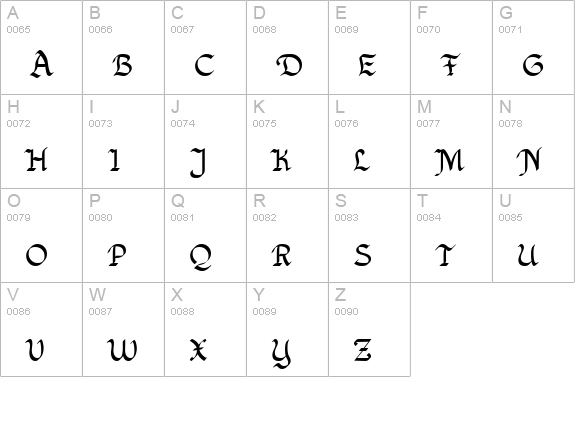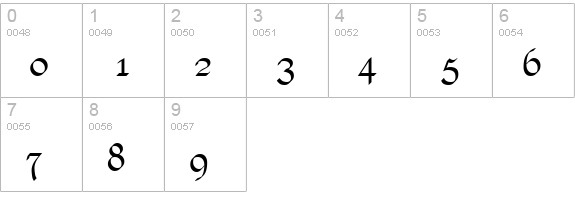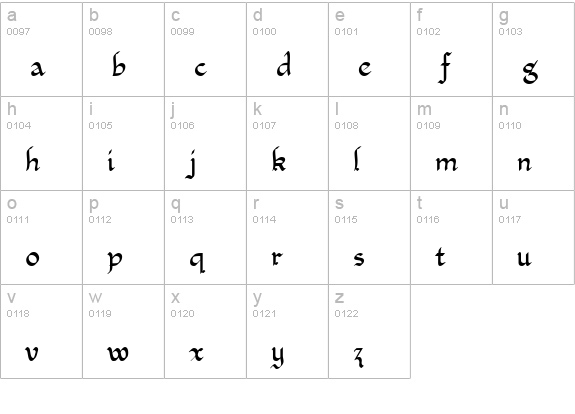
Xaltid Bold Font Details
Xaltid Bold is a strong, high-contrast variant in the Xaltid typeface family \xE2\x80\x94 well suited to headlines, attention-grabbing titles, and strong calls-to-action.
Introducing Xaltid Bold, a dynamic and eye-catching font that exudes strength and confidence. With its bold and commanding presence, Xaltid Bold is perfect for making a statement in your designs. This versatile font can be used for a variety of projects, from branding to headlines to posters. What sets Xaltid Bold apart is not only its striking appearance but also its accessibility. This font is available for free download at FontsMarket.com, making it easily accessible to designers and creatives looking to enhance their projects with a touch of boldness. Whether you're working on a personal project or a client's campaign, Xaltid Bold is sure to make a lasting impression with its modern and impactful design. Download Xaltid Bold today and elevate your designs with this free, powerful font that is sure to stand out from the crowd.